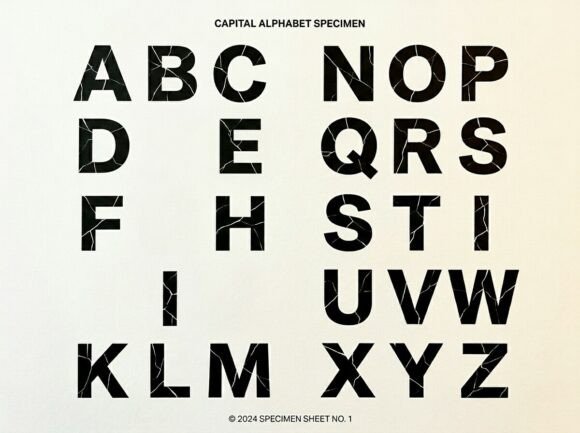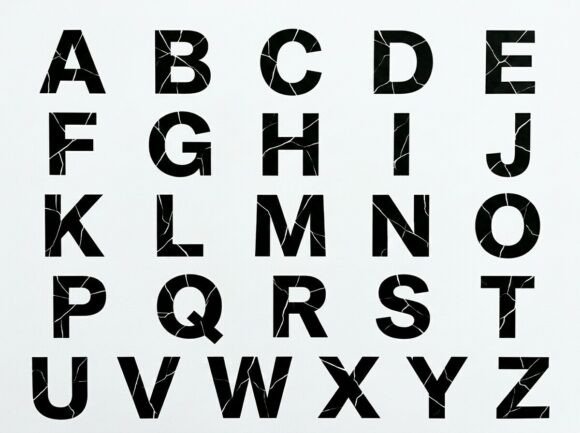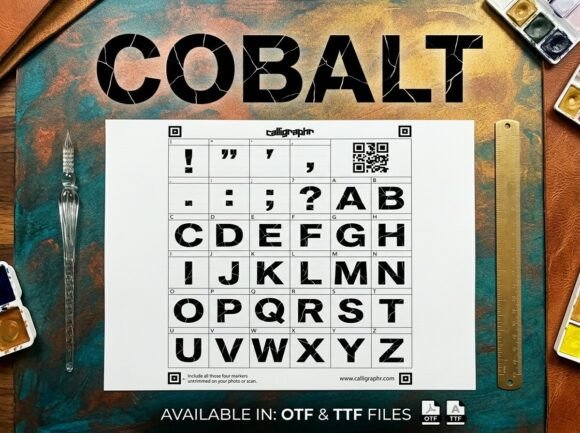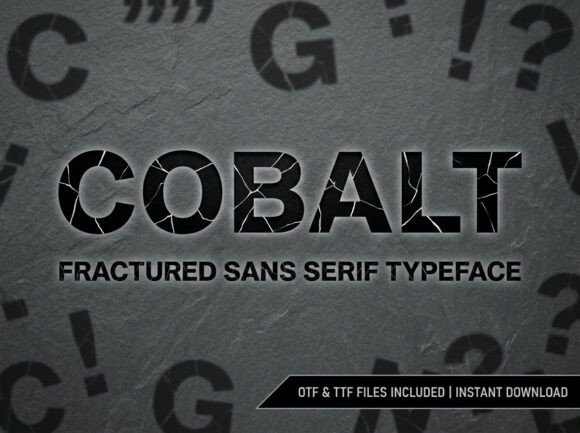
Cobalt Font: A Stunning Decorative Display Font for Creators
Are you tired of using the same old fonts for your designs? Look no further than the Cobalt Font, a unique and artistic display font that’s sure to turn heads. With its strong visual personality and decorative elements, this font is perfect for creators who want to make a statement and break away from the ordinary.
What is Cobalt Font?
Cobalt Font is a decorative display font designed to be the center of attention. Its unique artistic elements and strong visual personality make it perfect for bold headlines, artistic logos, and creative packaging. This font is versatile enough to be used in a variety of design projects, from branding and advertising to packaging and signage.
Key Features of Cobalt Font
• Unique Artistic Elements: Cobalt Font features unique artistic elements that set it apart from other fonts. Each letter is carefully crafted to make a statement and add visual interest to your designs.
• Strong Visual Personality: This font has a strong visual personality that’s sure to grab attention. Its bold and decorative elements make it perfect for headlines, logos, and other design elements that need to stand out.
• Versatile: Cobalt Font is versatile enough to be used in a variety of design projects, from bold headlines and artistic logos to creative packaging and signage.
• Professional and Polished Finish: Despite its bold and decorative nature, Cobalt Font maintains a professional and polished finish that’s suitable for a wide range of design applications.
IMPORTANT NOTE BEFORE PURCHASE: Cobalt Font is an ALL-CAPS (Uppercase Only) display typeface. It does not include lowercase letters. It is specifically designed for high-impact headlines, logos, and decorative initials where every letter is a work of art.
Why Choose Cobalt Font?
There are many reasons why Cobalt Font is a great choice for designers and crafters. Here are just a few:
• Unique and Eye-Catching: Cobalt Font is a unique and eye-catching font that’s sure to grab attention. Its decorative elements and strong visual personality make it perfect for designs that need to stand out.
• Versatile: This font is versatile enough to be used in a wide range of design projects, from branding and advertising to packaging and signage.
• Professional and Polished: Despite its bold and decorative nature, Cobalt Font maintains a professional and polished finish that’s suitable for a wide range of design applications.
Design Tips and Inspiration
Here are some design tips and inspiration to help you get the most out of Cobalt Font:
• Use for Headlines and Titles: Cobalt Font is perfect for headlines and titles that need to grab attention. Use it to add visual interest to your designs and make a statement.
• Pair with Other Fonts: Cobalt Font can be paired with other fonts to create a unique and visually appealing design. Try pairing it with a clean and simple font for a bold and modern look.
• Experiment with Colors and Textures: Cobalt Font can be used with a variety of colors and textures to add depth and interest to your designs. Experiment with different colors and textures to find the perfect combination for your project.
Cobalt Font is a stunning decorative display font that’s perfect for creators who want to make a statement and break away from the ordinary. With its unique artistic elements, strong visual personality, and versatile design, this font is suitable for a wide range of design applications. Whether you’re a designer, crafter, or DIY enthusiast, Cobalt Font is a great choice for adding visual interest and personality to your designs.